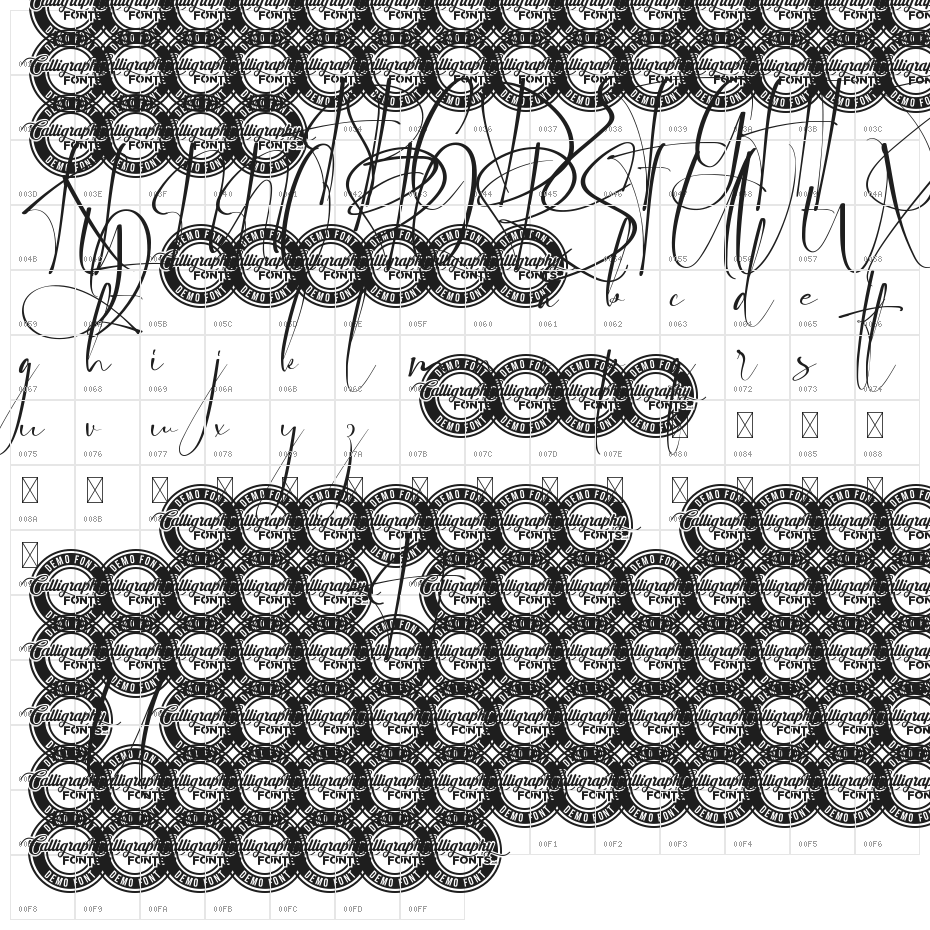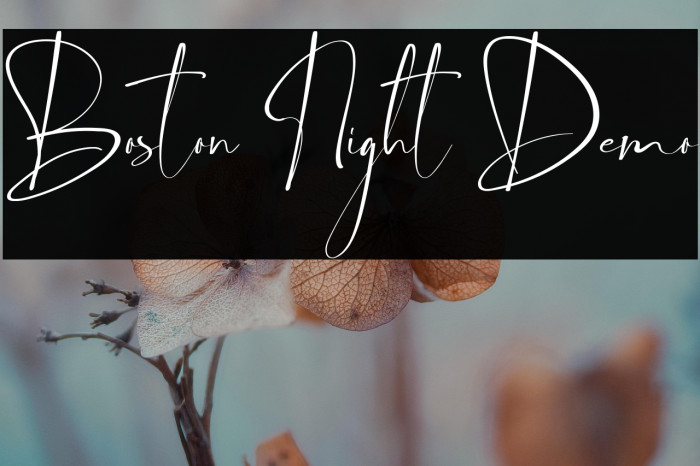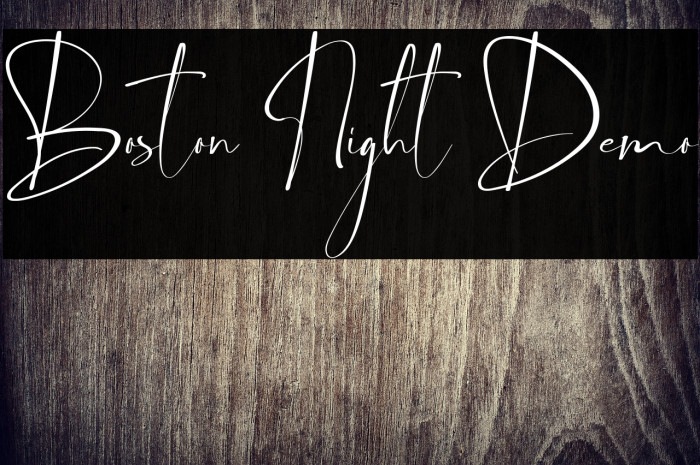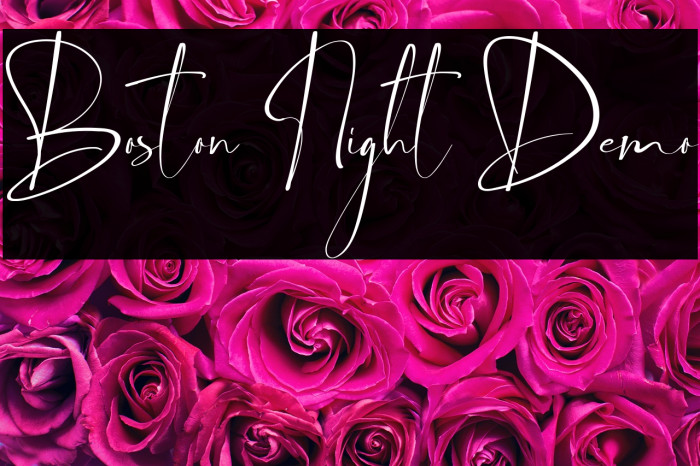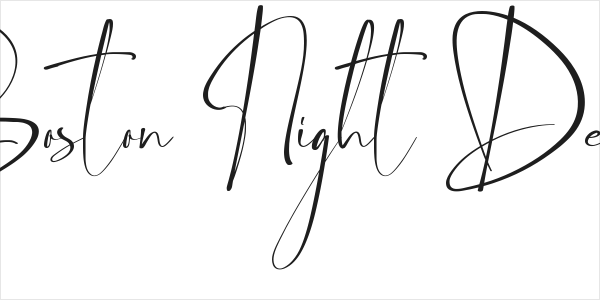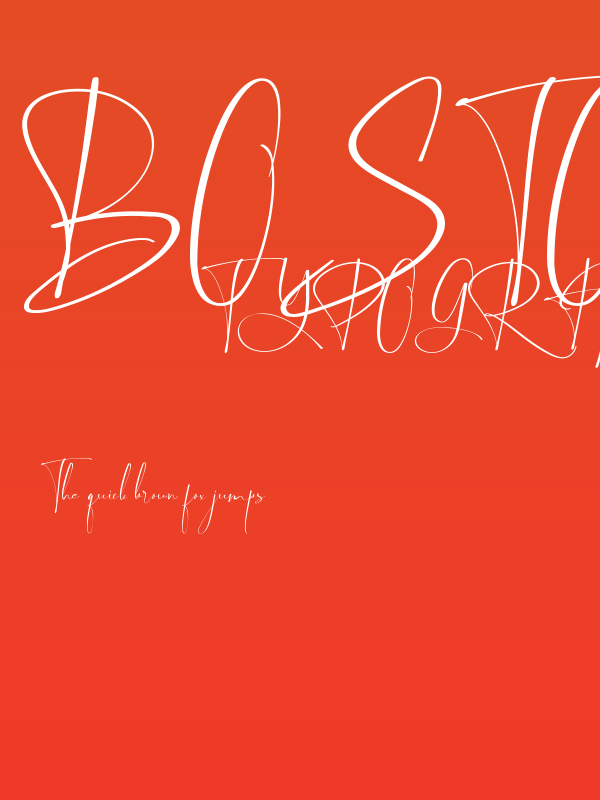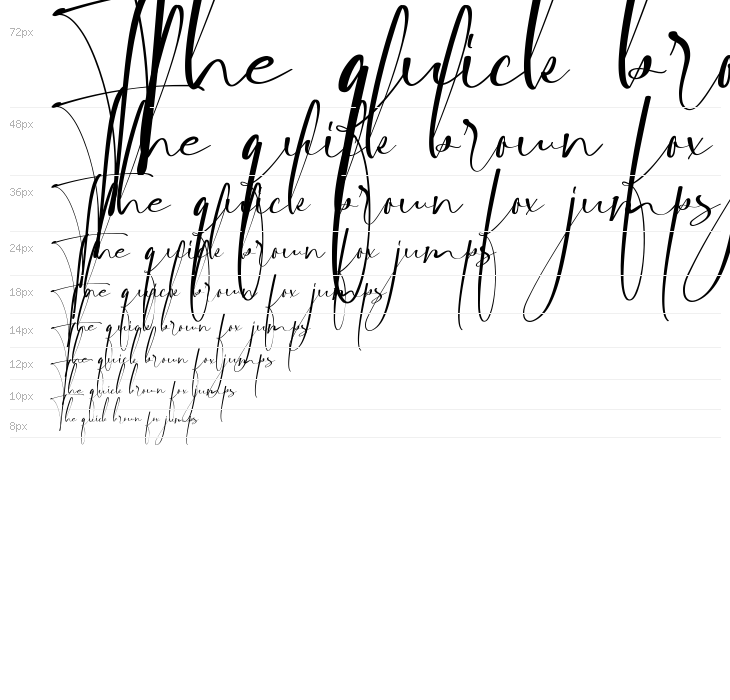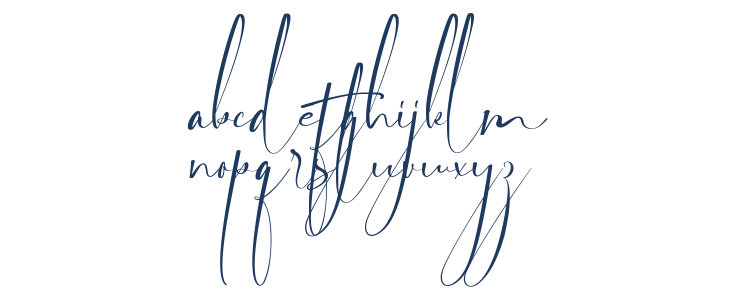
Boston Night Demo Font
Boston Night Demo Description
This font features an elegant and flowing script style, characterized by its intricate and delicate strokes. The uppercase letters are tall and slender, with graceful curves and loops that give a sense of movement and fluidity. The lowercase letters are similarly styled, with extended ascenders and descenders that add to the font's overall elegance. The characters are connected in a cursive manner, enhancing the handwritten feel. The font's thin lines and high contrast between thick and thin strokes contribute to its sophisticated appearance. It is ideal for projects that require a touch of elegance and refinement, such as wedding invitations, luxury branding, and high-end product packaging.
| Overall Style | Elegant, Sophisticated |
| Proposed Projects | Wedding invitations, luxury branding, high-end product packaging, elegant stationery. |